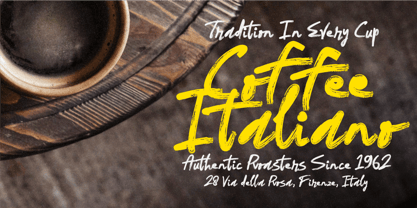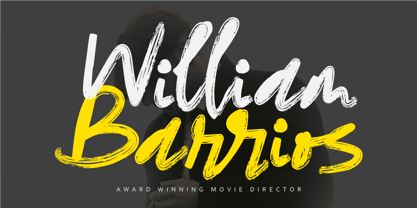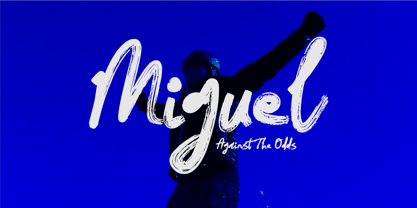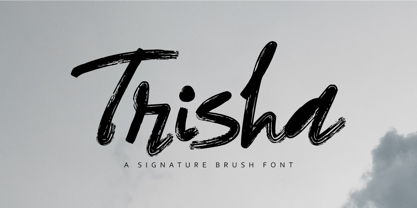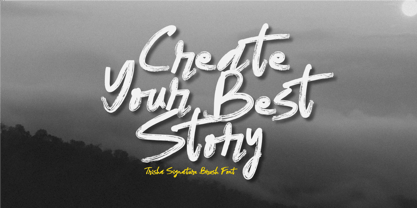
Trisha
The Trisha Font Family was designed by Aldy Sidik and published by Epiclinez. Trisha contains 1 styles. More about this family
Trisha Brush Signature is a modern handwritten brush signature font that combines natural elegance with authentic brush strokes. Designed to capture the beauty of real handwriting, Trisha delivers a smooth, flowing signature style perfect for luxury branding, wedding invitations, fashion logos, beauty products, social media graphics, packaging, photography watermarks, and personal branding. Its graceful curves and stylish letterforms create a sophisticated yet approachable look, making every design feel personal and memorable. Whether you're crafting a premium brand identity or adding a handwritten touch to creative projects, Trisha Brush Signature brings charm, confidence, and timeless elegance to your typography